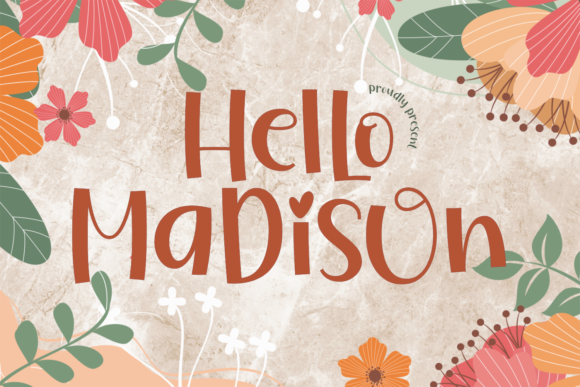
Feast your eyes on Hello Madison Font, a masterpiece from Creative Fabrica Fonts, designed to capture the essence of modern elegance and artistic charm. Crafted with meticulous attention to detail, this display font exudes a captivating charm that will elevate your designs to new heights.
Immerse yourself in a world of creativity as you explore the endless possibilities that await with Hello Madison. Whether you're a seasoned designer or just starting your artistic journey, this font will unlock your imagination and unleash a torrent of inspiration.
With its clean lines, graceful curves, and striking presence, Hello Madison Font is the perfect choice for adding a touch of sophistication to your projects. Its versatility extends across a wide spectrum of design applications, making it an indispensable tool in your creative arsenal.
Picture your designs adorned with Hello Madison's enchanting characters, captivating your audience and leaving a lasting impression. From wedding invitations that exude romance to posters that demand attention, this font will transform your ideas into visual masterpieces.
Unleash the power of Hello Madison Font and witness the transformation of your designs. Its intuitive charm will guide you effortlessly through the creative process, allowing you to express your unique style and captivate your audience with every stroke.